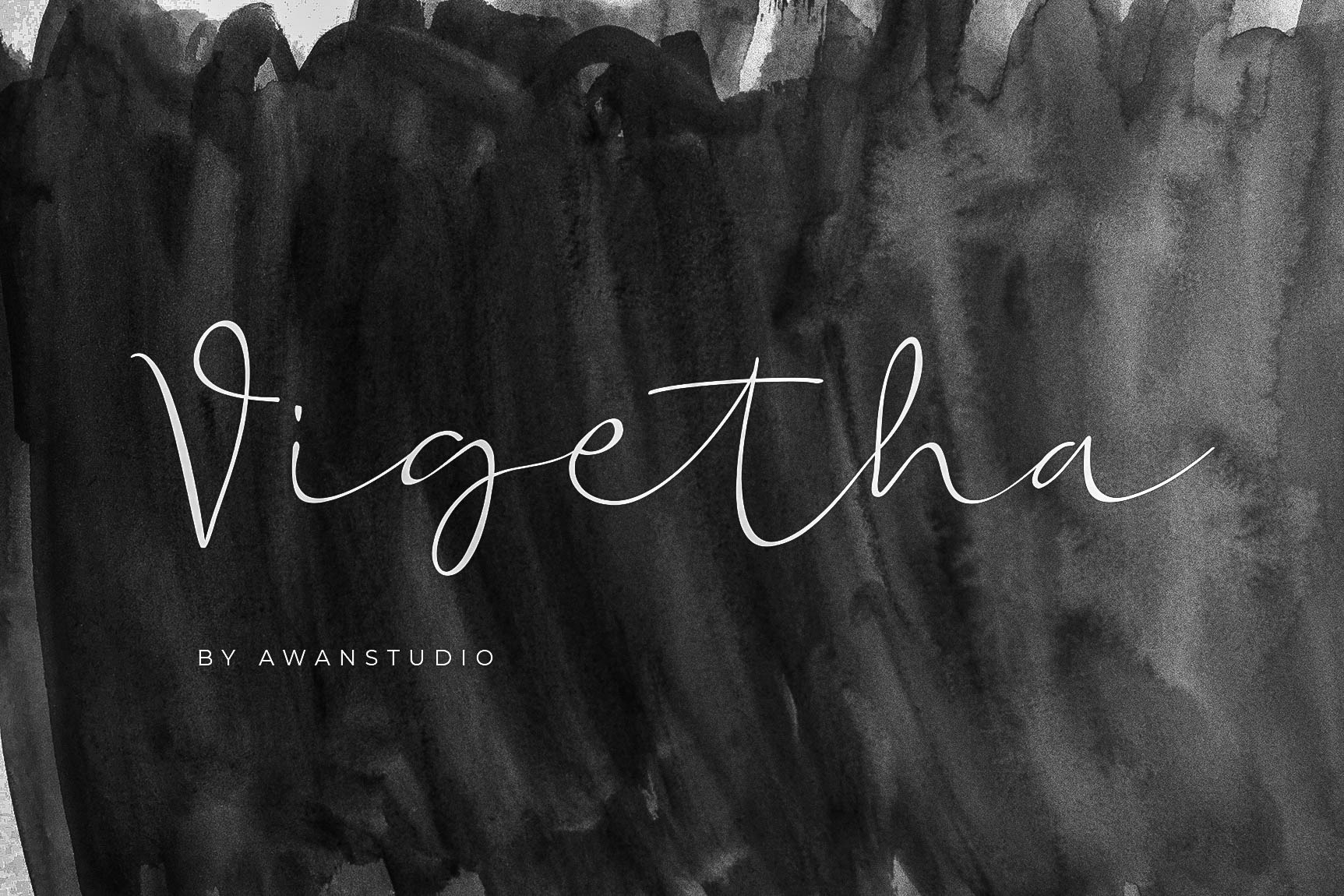
Vigetha Script Font
Introducing Vigetha script font , it allows you to create stunning and easy hand-lettering in an instant. Ideal for the logo, branding, quotes, wedding, product label/packaging, fashion, letter, advertising, invitation, poster, merchandise, apparel, stationery, greeting cards, etc
- Ligatures: at et ft ht it nt ot st att itt utt ett ott bb cc dd ee ff gg ll mm nn oo pp rr ss tt fi the